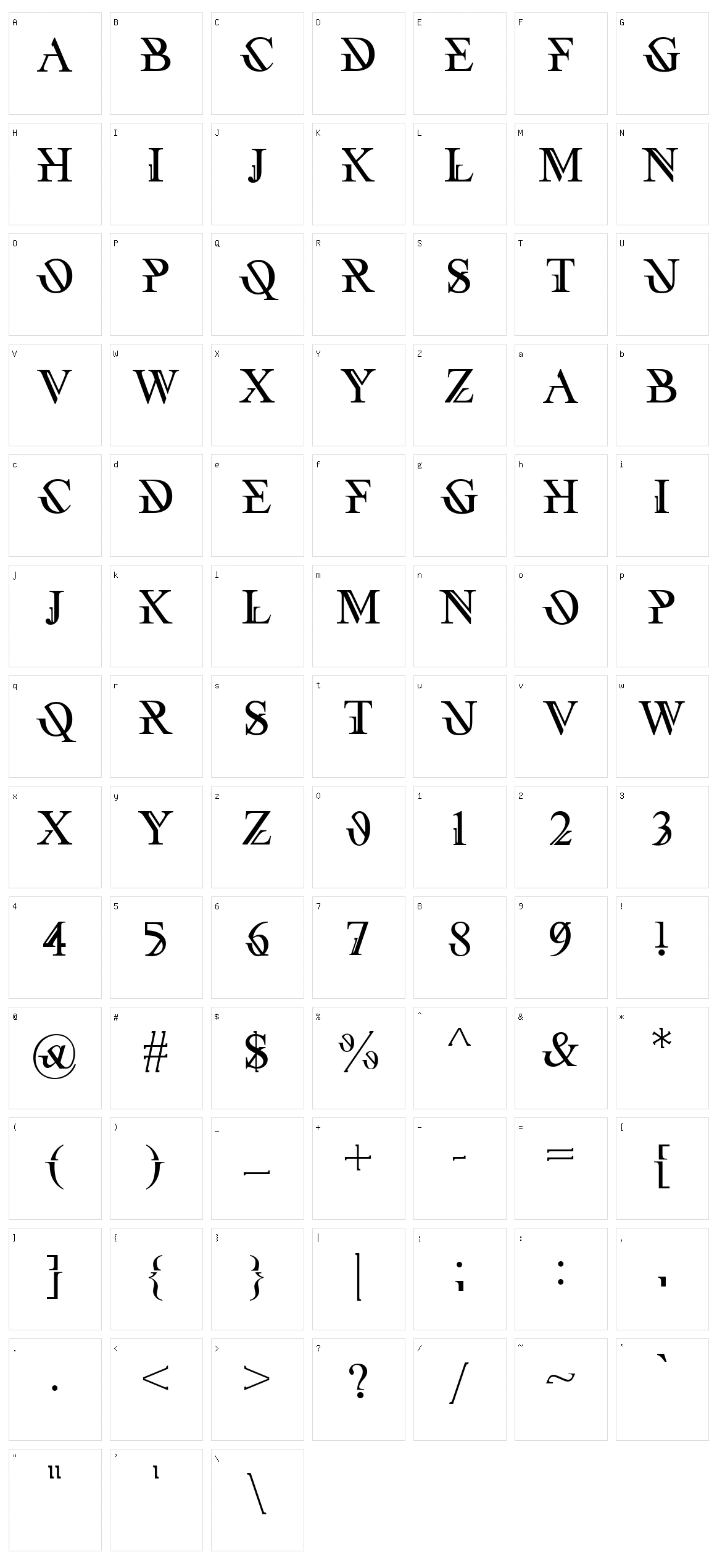
URBAN CASE
URBAN CASE inspiration from the Urban People, Simple, Elegant, Classy, have a great different Style.
great for your Logos, signature, promotion media, etc.
unique glyph and deep touch